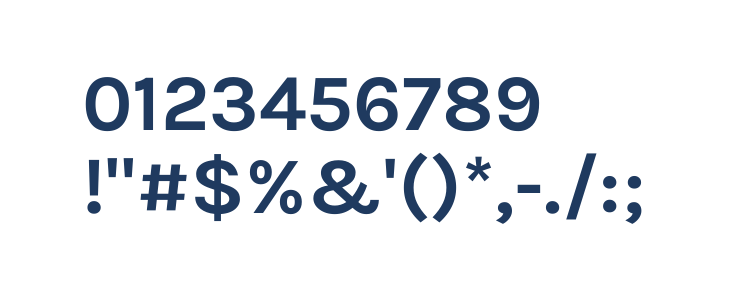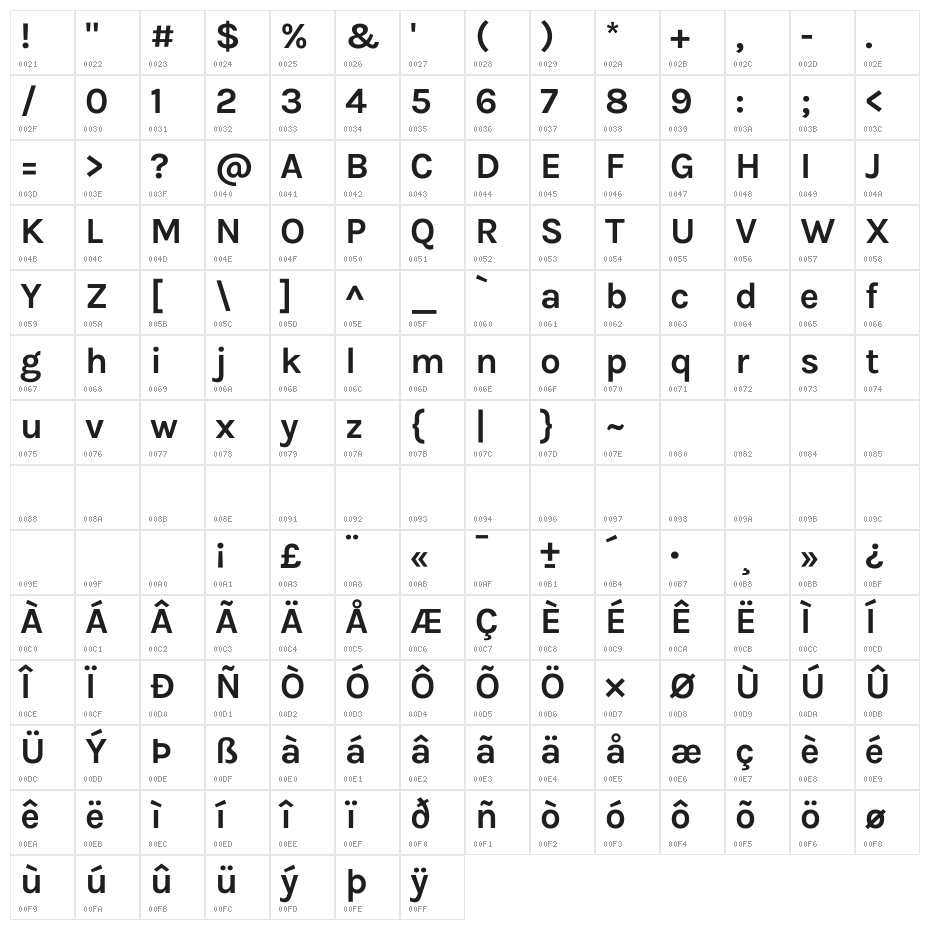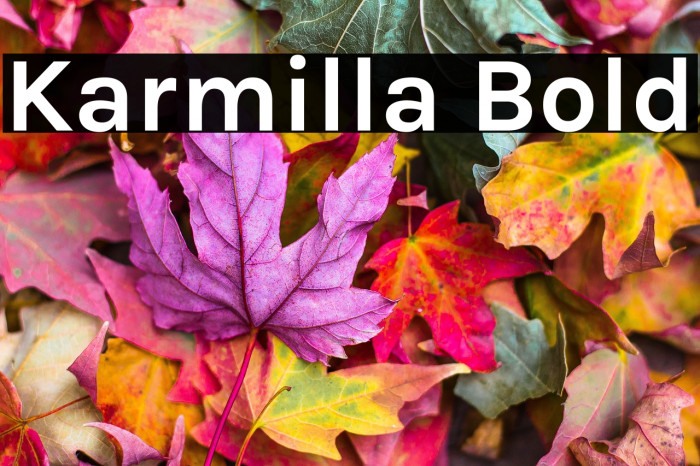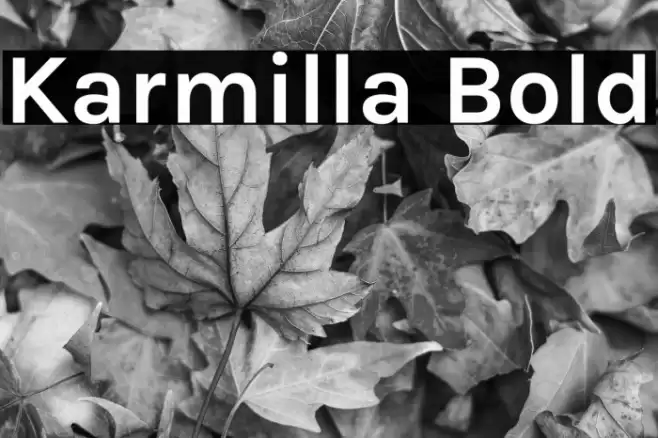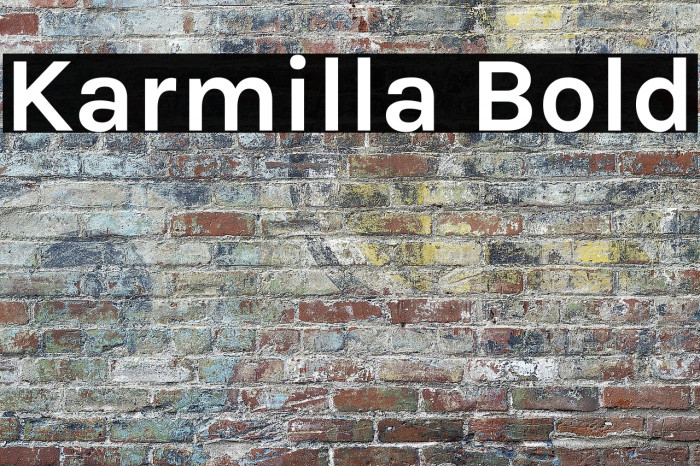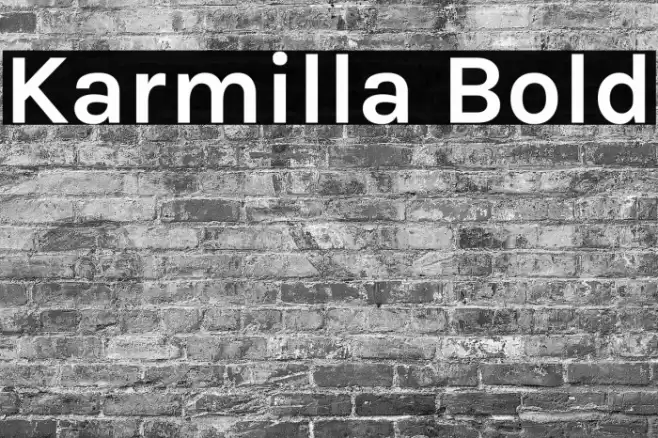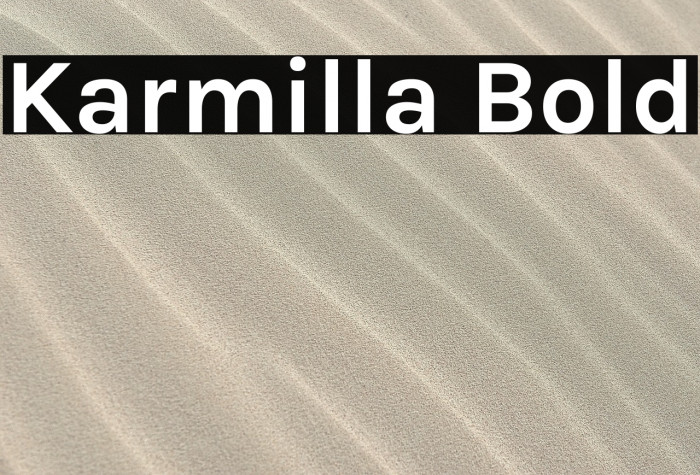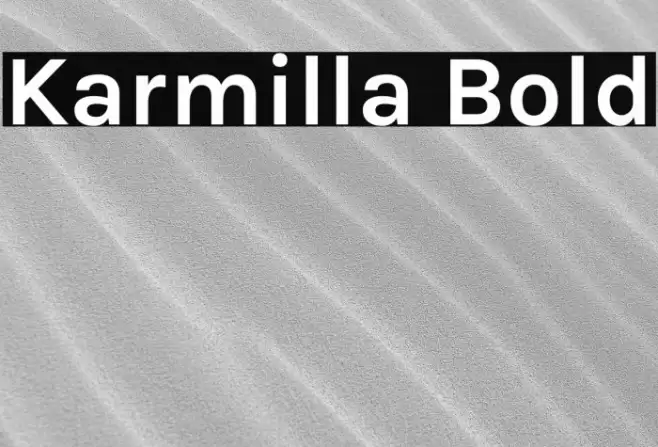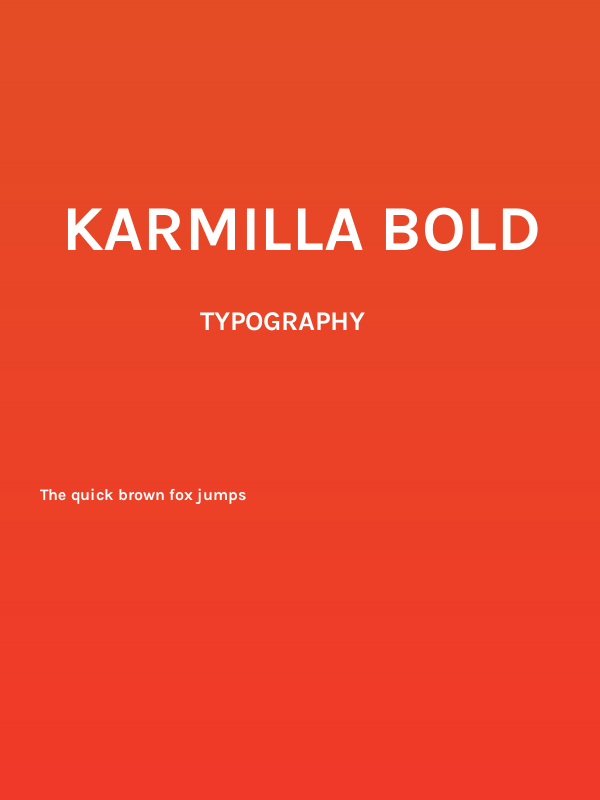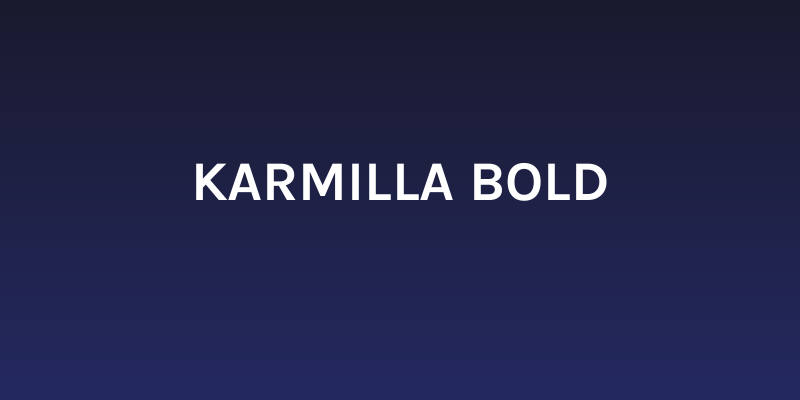
Karmilla Bold Font
Karmilla Bold Description
This font exhibits a clean and modern sans-serif style, characterized by its bold weight and uniform stroke width. The characters are well-defined with a consistent height, making it highly legible. The uppercase letters are slightly taller than the lowercase, providing a balanced and structured appearance. The numerals are clear and distinct, ensuring readability in various contexts. Special characters are included, maintaining the font's cohesive design. This font is versatile, suitable for both digital and print media, offering a professional yet approachable aesthetic.
Use CaseHeadlines, Body text, Logos
Proposed ProjectsIdeal for branding, advertising, web design, and editorial projects where clarity and modernity are desired.